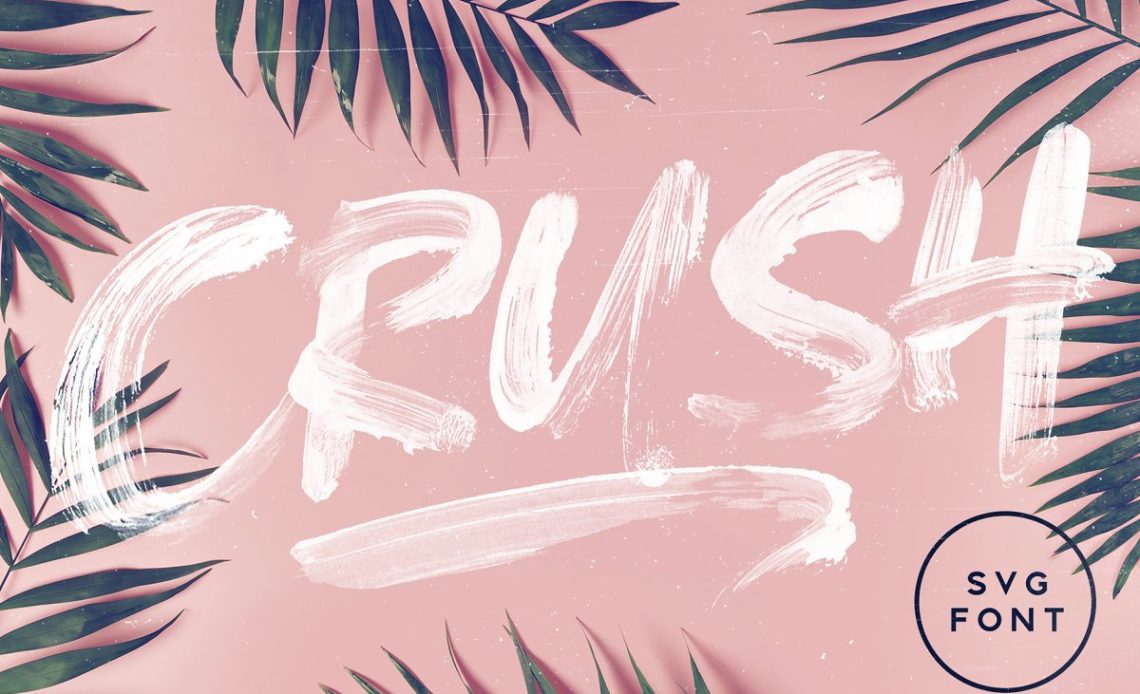
Introducing CRUSH SVG Font, a captivating and expressive brush font created by Sam Parrett. This font is perfect for those who embrace imperfections and want to make a bold statement. With its new Opentype-SVG font technology, CRUSH offers super high resolution paint strokes built into the font as a transparency, allowing you to effortlessly create stunning designs.
Whether you're working on product packaging, advertisements, posters, cover designs, or social media graphics, CRUSH will make a big impact. Its all-caps style adds a touch of loudness and pride to your text, ensuring that your message stands out from the crowd.
One of the standout features of CRUSH is its alternate characters. With two sets of each letter, you can mix and match to create truly unique and customized text layouts. Simply switch between upper and lowercase on your keyboard to access the different letter sets.
To add even more flair to your designs, the SVG and Regular versions of CRUSH come with four swashes. These swashes can be used to underline your script text and provide a stylish finishing touch. Simply type any of the square brackets to generate a swash.